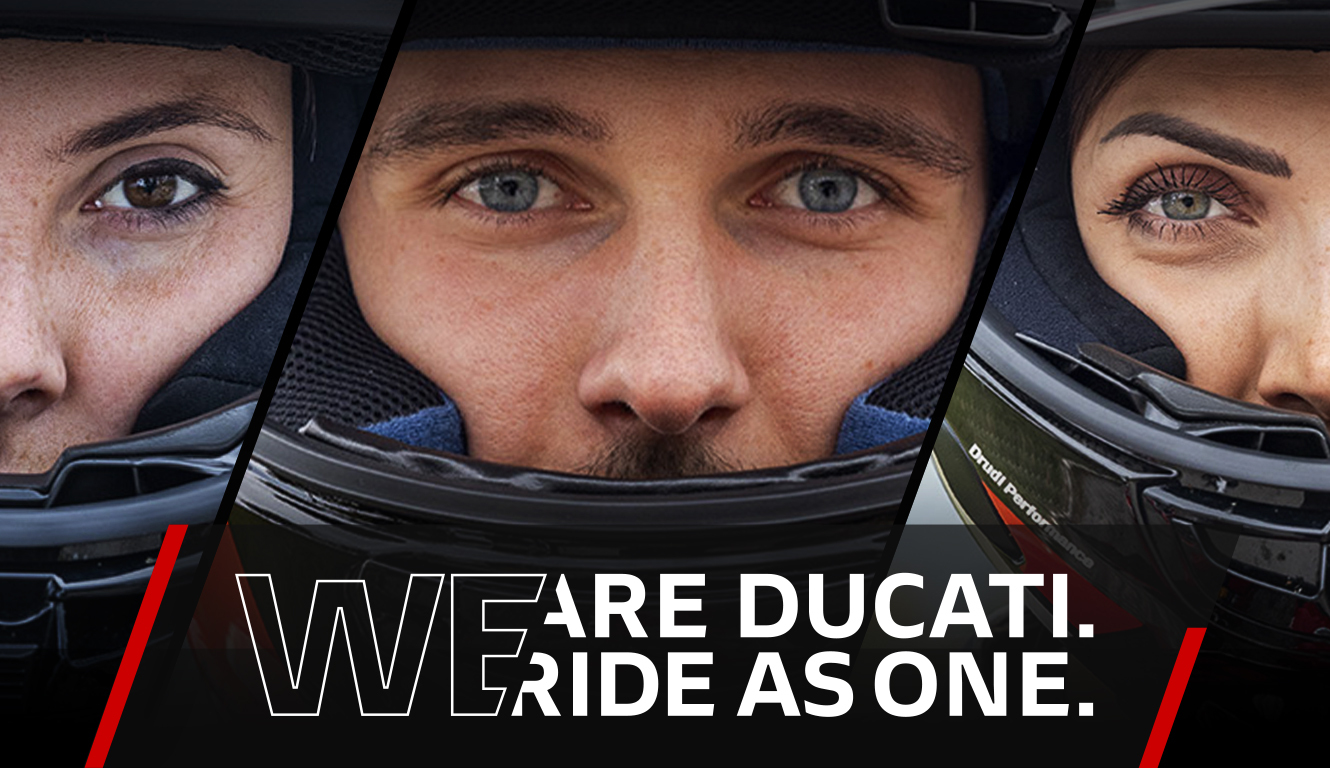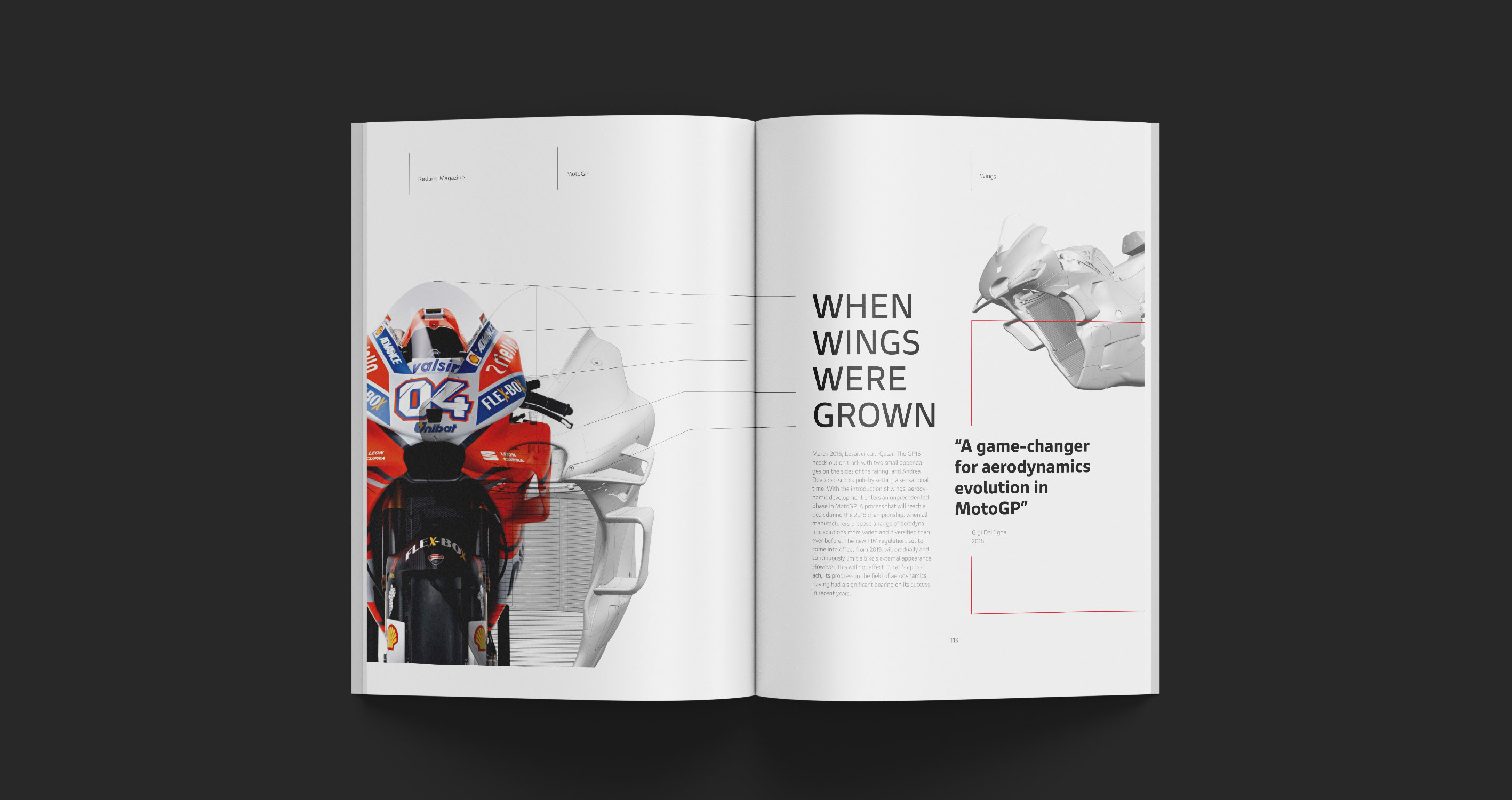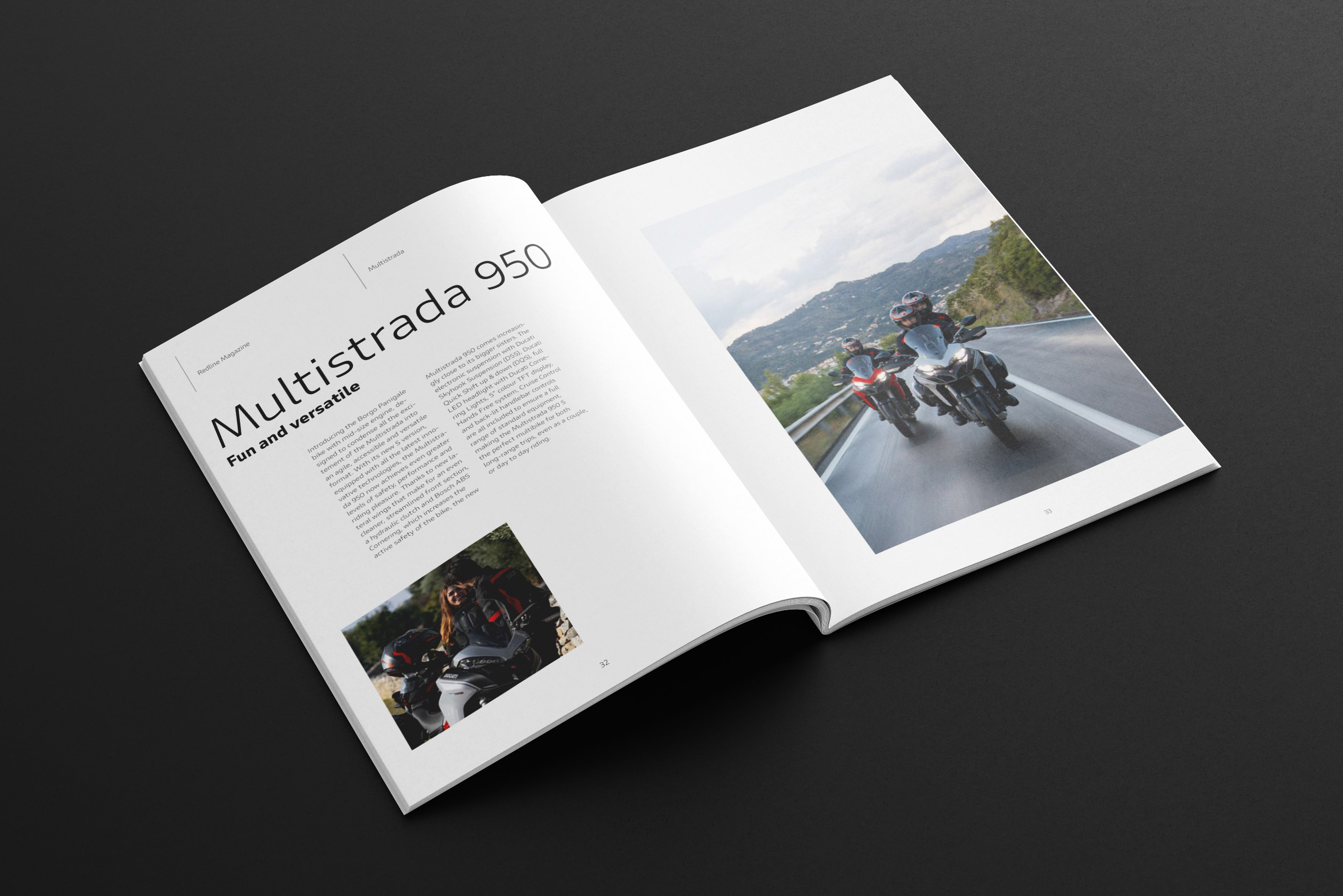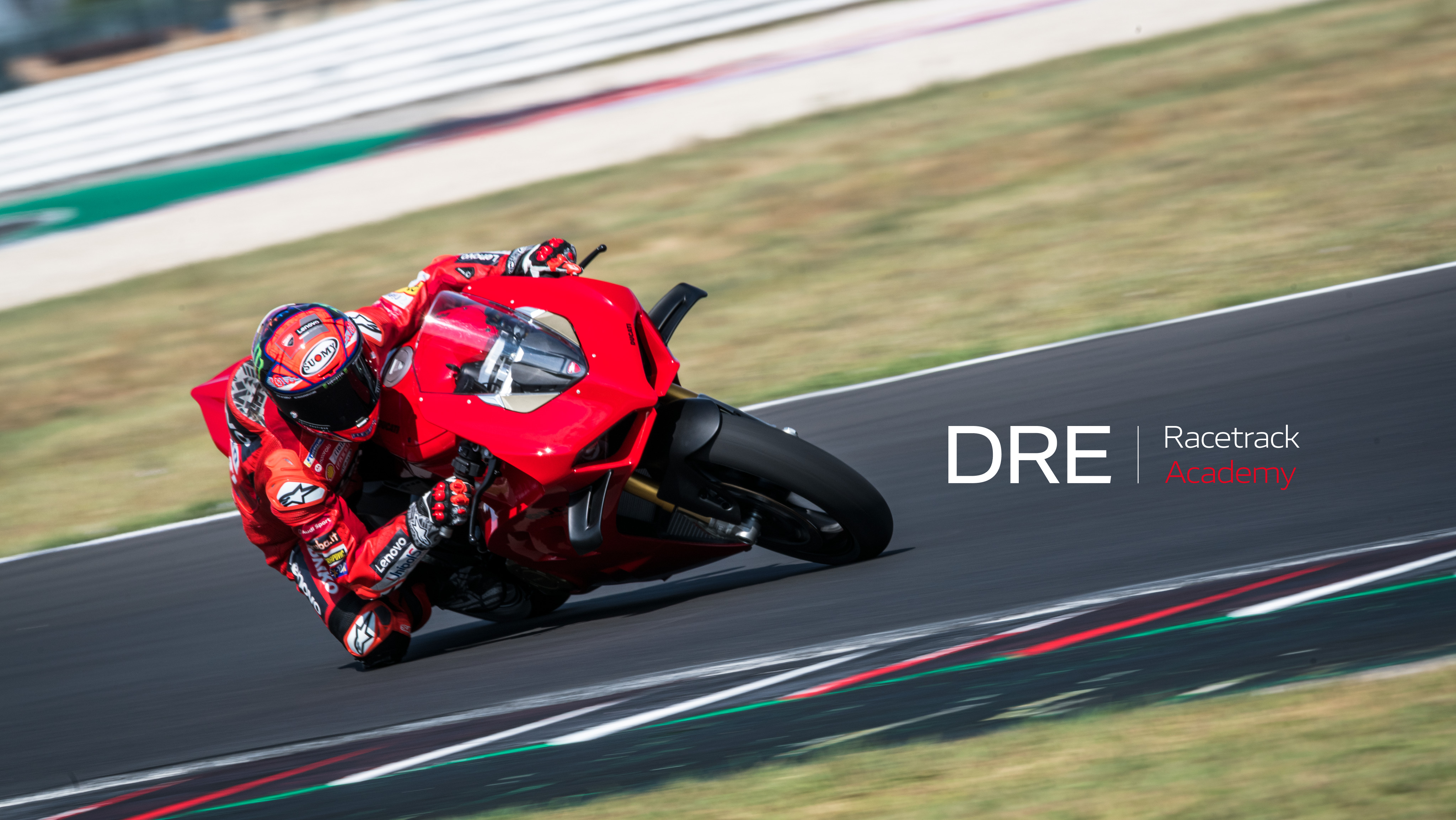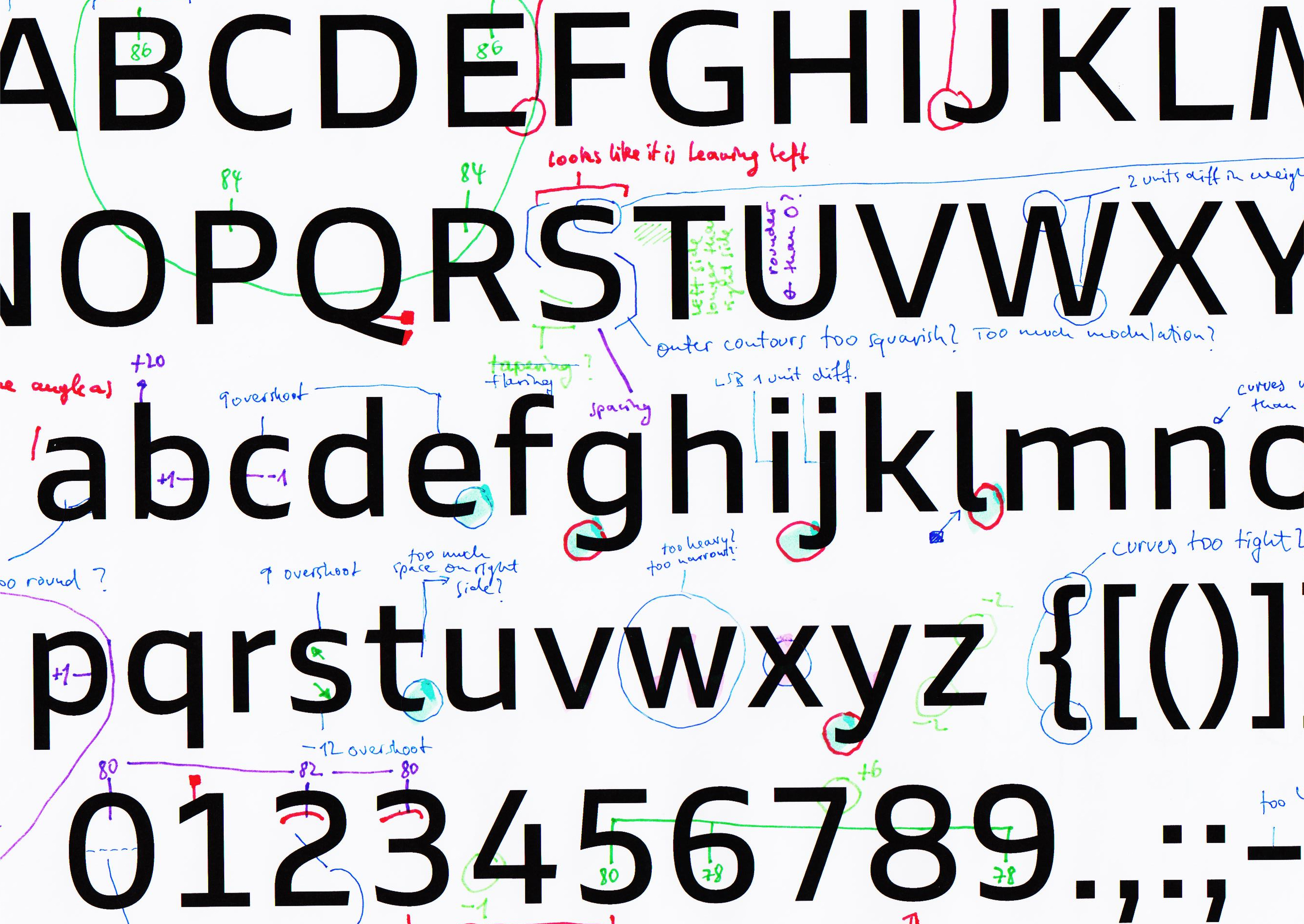
Ducati Style
A Custom Font Family for Ducati
Ducati Style in use
Specimen of Ducati Style saying 'Aerodynamics, supersport, racetrack, performance' in different weights
Specimen of Ducati Style showing the weight range from Condensed Light to Bold, Normal width Light to Bold, and Extended Light and Regular
Iconic motorcycle manufacturer Ducati faced the challenge of evolving its visual identity to better connect with a growing audience. We worked with them to create a new typeface to reduce complexity and bolster their brand consistency across all media.
Ducati Style, Custom Font Family, 2017–2019
Writing Systems
Latin
Language Support
Over 790 languages
Normal
Condensed
Extended